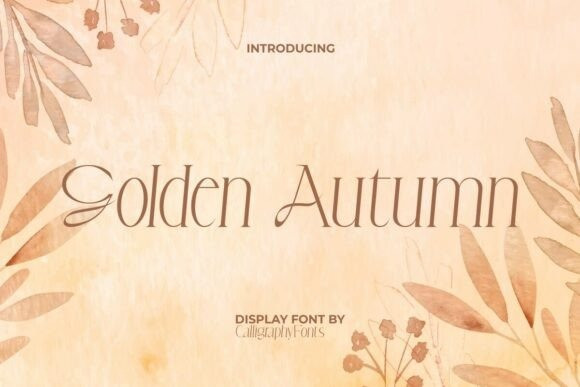
Golden Autumn Font
Golden Autumn Font is a gorgeous serif display font with a minimalist and charming visual elegance.
Embrace the serene beauty and warm embrace of the season with the Golden Autumn Serif Display Font!
This elegant display typeface captures the very essence of autumn with its graceful, flowing letterforms and a gentle, inviting presence. The Golden Autumn font features delicate, elongated strokes and a subtly calligraphic touch that evokes the visual poetry of falling leaves and crisp, golden light. It’s a beautifully refined typeface that blends classic elegance with a cozy, natural charm, making it perfect for conveying warmth and sophistication. Ideal for wedding stationery, elegant branding, lifestyle blogs, natural product packaging, or seasonal event invitations, this autumn-themed display font adds a touch of timeless grace to any design.
The Golden Autumn typeface is more than just letters; it’s an experience, bringing the tranquil and picturesque allure of the fall season directly to your creative projects, ensuring a beautifully harmonious and memorable result.